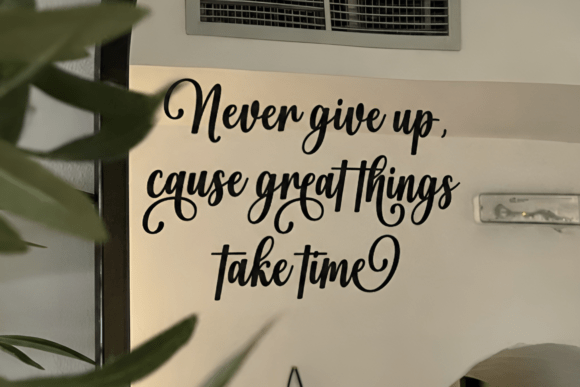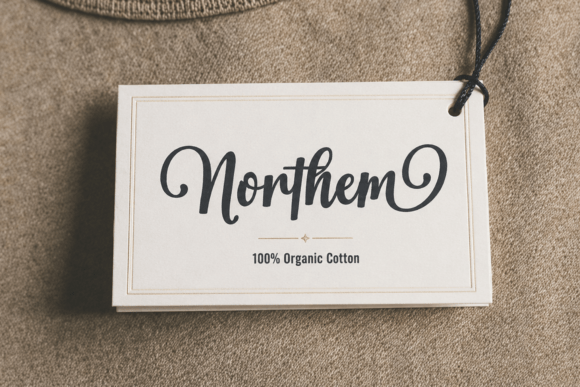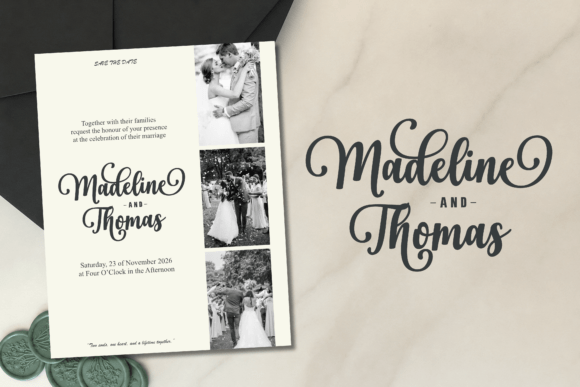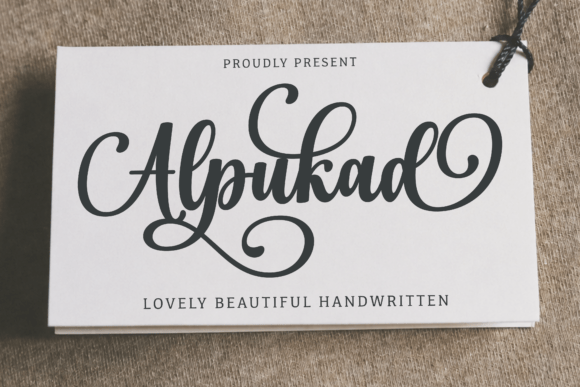
Introducing Alpukad Font: The Perfect Blend of Elegance and Playfulness
Are you looking for a font that exudes luxury, sophistication, and friendliness? Look no further than Alpukad, a stunning handwritten script font that is sure to elevate your designs to the next level. With its smooth flowing curves, bold strokes, and dramatic swashes, Alpukad is the perfect choice for designers and crafters who want to add a touch of elegance and whimsy to their work.
The Characteristics of Alpukad Font
Alpukad is a beautifully crafted font that boasts a range of characteristics that make it truly unique. Its handcrafted style gives it a natural and authentic feel, making it perfect for designs that require a personal touch. The font features large decorative flourishes on the uppercase and ending letters, adding a sophisticated artistic touch to any design. The thick lettering ensures that the font is highly readable, even at smaller sizes, making it versatile and easy to use.
Perfect for a Range of Design Projects
Alpukad is a versatile font that is suitable for a wide range of design projects. Its luxurious and friendly personality makes it perfect for:
- Branding: Use Alpukad to create stunning logos, business cards, and letterheads that reflect your brand’s personality and values.
- Wedding Invitations: Add a touch of elegance and sophistication to your wedding invitations, save-the-dates, and other stationery with Alpukad.
- Logos: Create eye-catching logos that stand out from the crowd with Alpukad’s bold strokes and dramatic swashes.
- Packaging: Use Alpukad to create beautiful packaging designs that reflect your brand’s personality and style.
- Social Media Graphics: Add a touch of elegance and sophistication to your social media graphics, including Facebook posts, Instagram stories, and Twitter headers.
- Feminine Design Projects: Alpukad is perfect for designs that require a feminine touch, including fashion blogs, beauty brands, and lifestyle websites.
The Benefits of Using Alpukad Font
So why choose Alpukad for your design projects? Here are just a few benefits of using this stunning font:
- Unique and Eye-Catching: Alpukad is a truly unique font that will set your designs apart from the crowd.
- Highly Readable: The thick lettering and bold strokes ensure that Alpukad is highly readable, even at smaller sizes.
- Versatile: Alpukad is suitable for a wide range of design projects, from branding and wedding invitations to logos and packaging.
- Elegant and Sophisticated: Alpukad exudes luxury and sophistication, making it perfect for designs that require a high-end feel.
Modern Calligraphy Aesthetics
Alpukad brings modern calligraphy aesthetics into every design, adding a touch of elegance and sophistication. The font’s smooth flowing curves and bold strokes create a beautiful, handcrafted feel that is perfect for designs that require a personal touch. Whether you’re a designer, crafter, or DIY enthusiast, Alpukad is the perfect choice for anyone looking to add a touch of luxury and whimsy to their work.
In conclusion, Alpukad is a stunning handwritten script font that is sure to elevate your designs to the next level. With its smooth flowing curves, bold strokes, and dramatic swashes, Alpukad is the perfect choice for designers and crafters who want to add a touch of elegance and whimsy to their work. Whether you’re creating branding materials, wedding invitations, logos, packaging, or social media graphics, Alpukad is the perfect font for any design project.
Get Ready to Elevate Your Designs with Alpukad
So why wait? Get ready to elevate your designs with Alpukad, the perfect blend of elegance and playfulness. With its unique characteristics, versatility, and modern calligraphy aesthetics, Alpukad is the perfect font for designers and crafters who want to create stunning designs that stand out from the crowd.